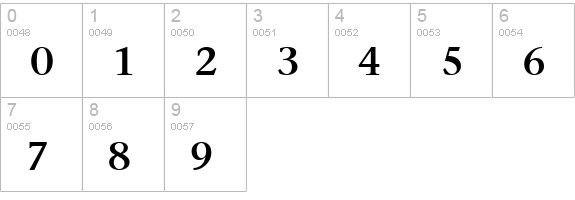
Prudential fed Font Details
Introducing the elegant and versatile Prudential fed font, a timeless typeface that combines classic sophistication with modern appeal. With its clean lines and balanced proportions, Prudential fed is perfect for a wide range of design projects, from branding to editorial layouts. What sets Prudential fed apart is not only its aesthetic beauty but also the fact that it is available for free download at FontsMarket.com. This means that you can easily access this high-quality font without any cost, making it a valuable addition to your font library. Whether you're looking to elevate your designs with a touch of refinement or seeking a versatile typeface for various applications, Prudential fed is a fantastic choice. Download it for free today and unleash your creativity with this exquisite font.